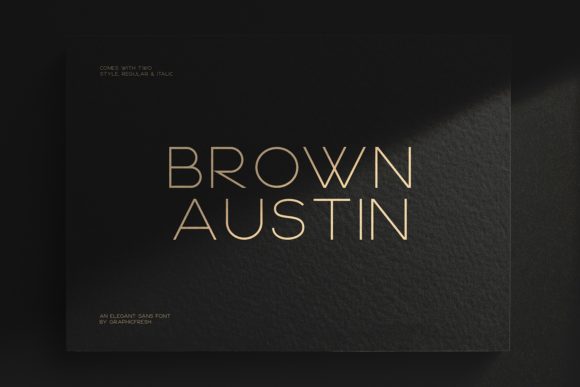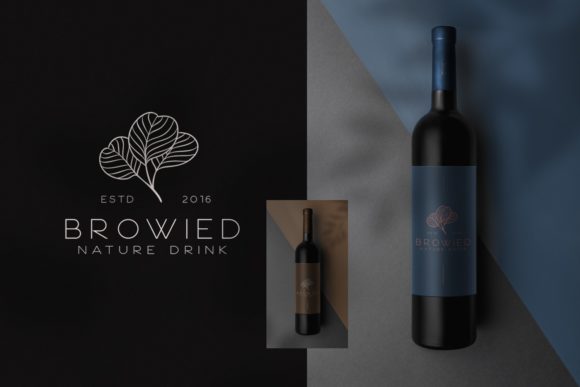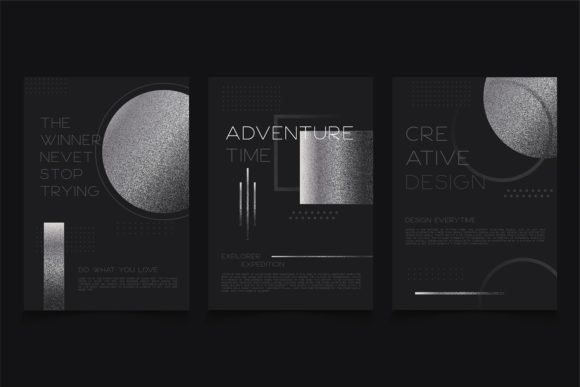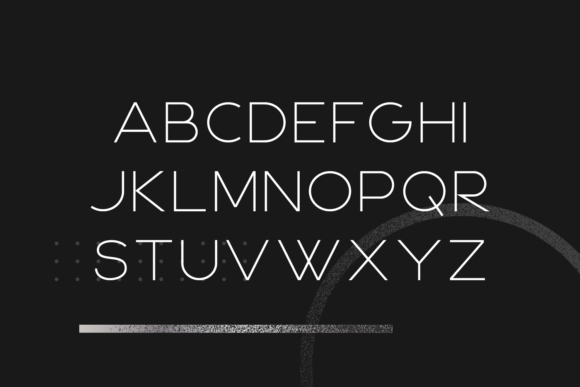
Brown Austin Font: Elegant Sans Serif for Modern Branding & Logo Design
About the Brown Austin Font
Experience the unique personality of Brown Austin Font, a font designed for impact. Brown Austin is a distinct, elegant sans serif font that blends traditional influences into a contemporary aesthetic. It will look particularly adept when used in logos, branding, packaging design, and much more.
Brown Austin’s elegant, yet contemporary feel makes it ideal for headlines, logos, and short-form text in branding materials and packaging. Its refined aesthetic, however, doesn’t translate well to body text or UI elements where readability over extended lengths is paramount.
The font’s inherent sophistication pairs well with a variety of styles. Consider a classic serif like Garamond for a balanced, traditional feel, or a geometric sans-serif like Futura for a more modern, streamlined look. A handwritten script font could add a touch of personality for specific applications, creating visual interest without overwhelming Brown Austin’s inherent elegance.
Brown Austin projects a sophisticated and refined personality, making it suitable for brands emphasizing quality, craftsmanship, or timeless style. It’s a versatile yet distinctive choice for projects requiring a touch of class.
Brown Austin Font Usage Examples
Brown Austin Font Example